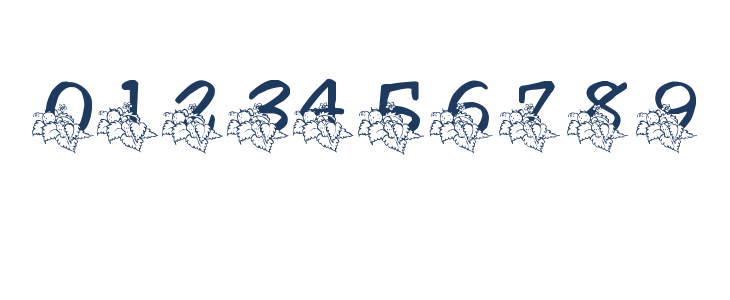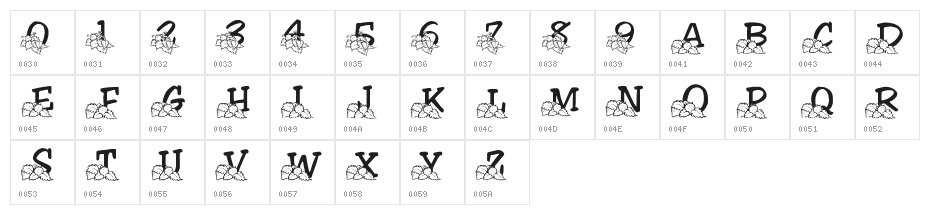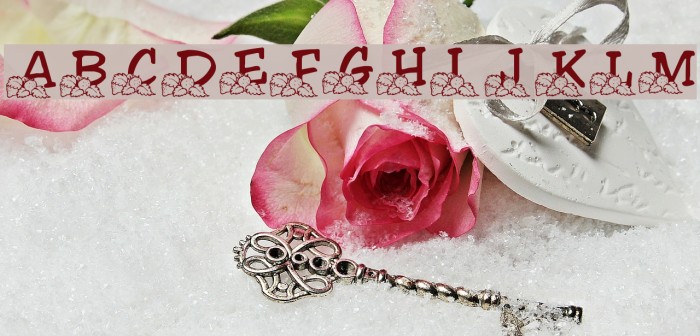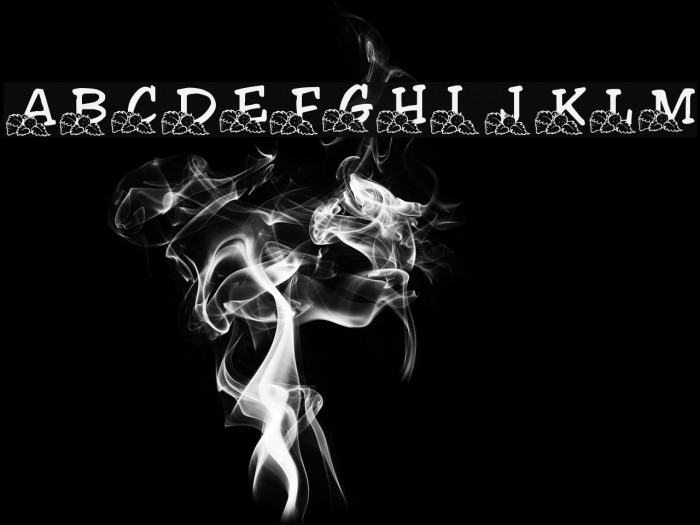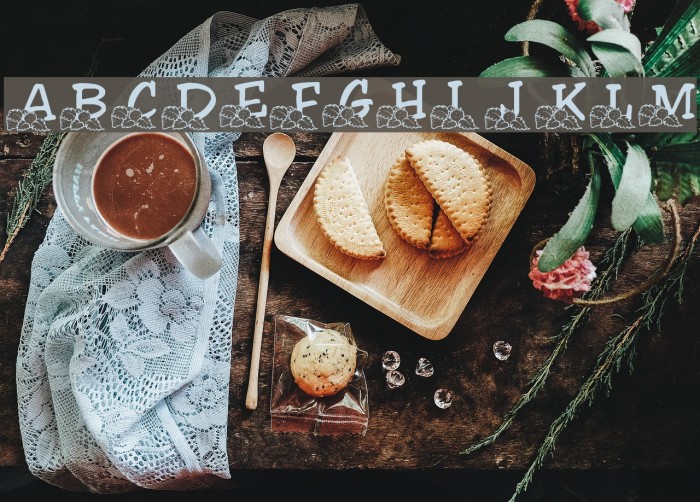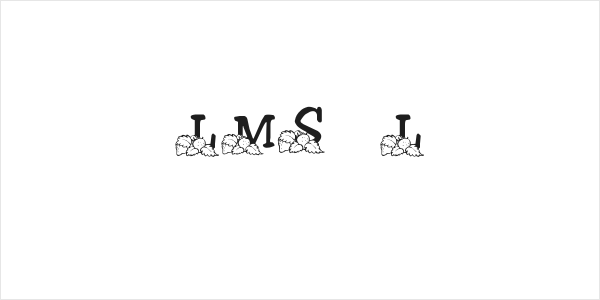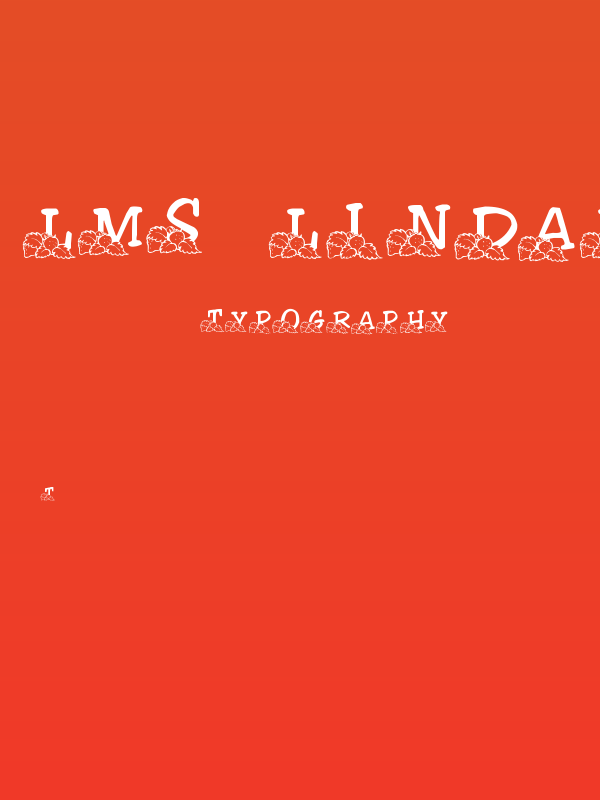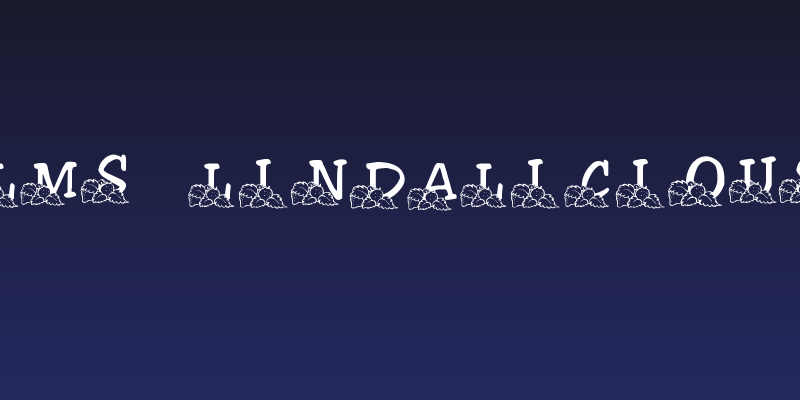
LMS Lindalicious Font
LMS Lindalicious Description
This decorative font features bold, uppercase and lowercase letters adorned with intricate floral designs at the base of each character. The embellishments add a whimsical and artistic touch, making it ideal for creative projects. The characters are evenly spaced, with a consistent width and bold weight, providing a balanced and visually appealing appearance. The floral elements are detailed and seamlessly integrated into the design, enhancing the font's uniqueness and charm. This font is perfect for projects that require a touch of elegance and creativity, such as invitations, greeting cards, and artistic branding.
| Use Case | Headlines, Logos, Artistic projects |
| Proposed Projects | Ideal for invitations, greeting cards, artistic branding, and decorative headings. |